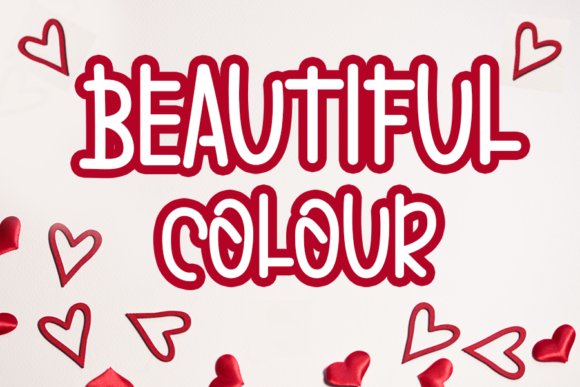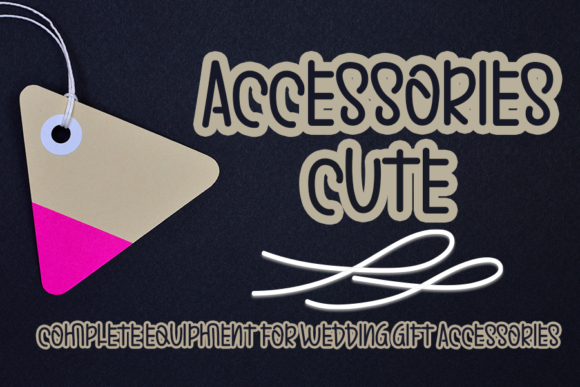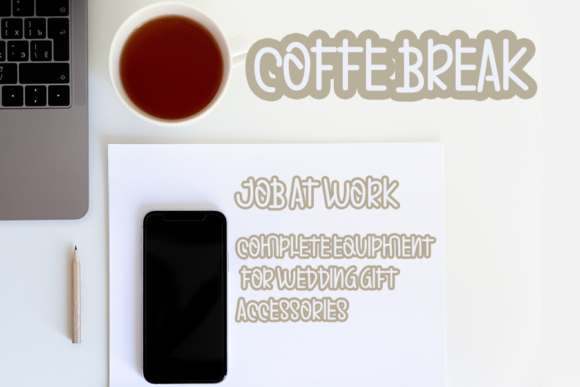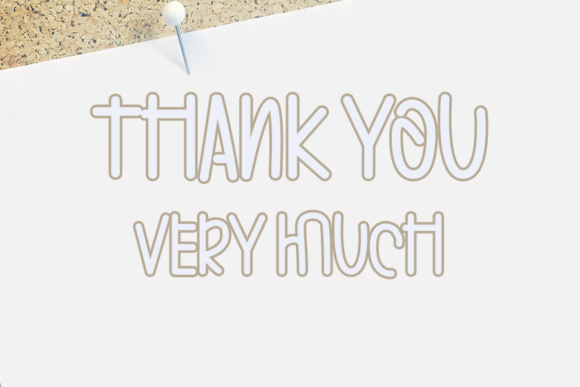
Spring List Font
About Spring List Font
Spring List is a sweet and friendly handwritten font, designed to easily become a true favorite. Get creative with its authentic and quirky style, and use it to brighten up any kids and school project!